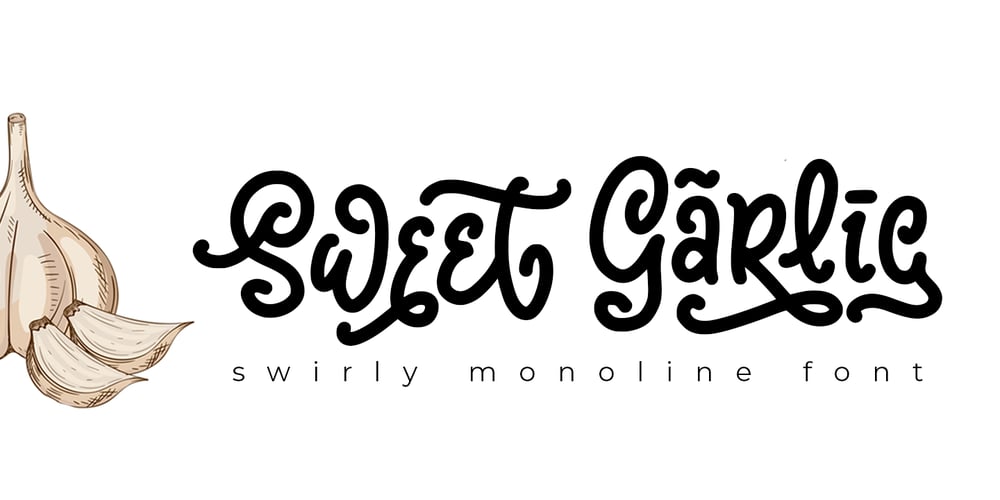
Sweet Garlic Font Family was designed by Abo Daniel and published by Abo Daniel. Sweet Garlic contains 1 styles and family package options. Sweet Garlic is a swirly monoline font, designed for Printing and Cutting projects that need a monoline feel.It is great for quotes, branding, packaging, advertising, logo, card, and more.It comes with a lot of features : Every lowercase character have about 6 to 10 alternate Every uppercase character have 3 alternate 10 variations of an ampersand Swirly decorative typeface Multilingual Support PUA encoded Easy to Access: you only need add underscore 2 x before or after the lowercase, to get the titling or ending swash. for example ( a _ _ or _ _ a ) add underscore and number from 0 to 9, to get the alternate of an ampersand Hope You Love itRegards,Abo Daniel Studio